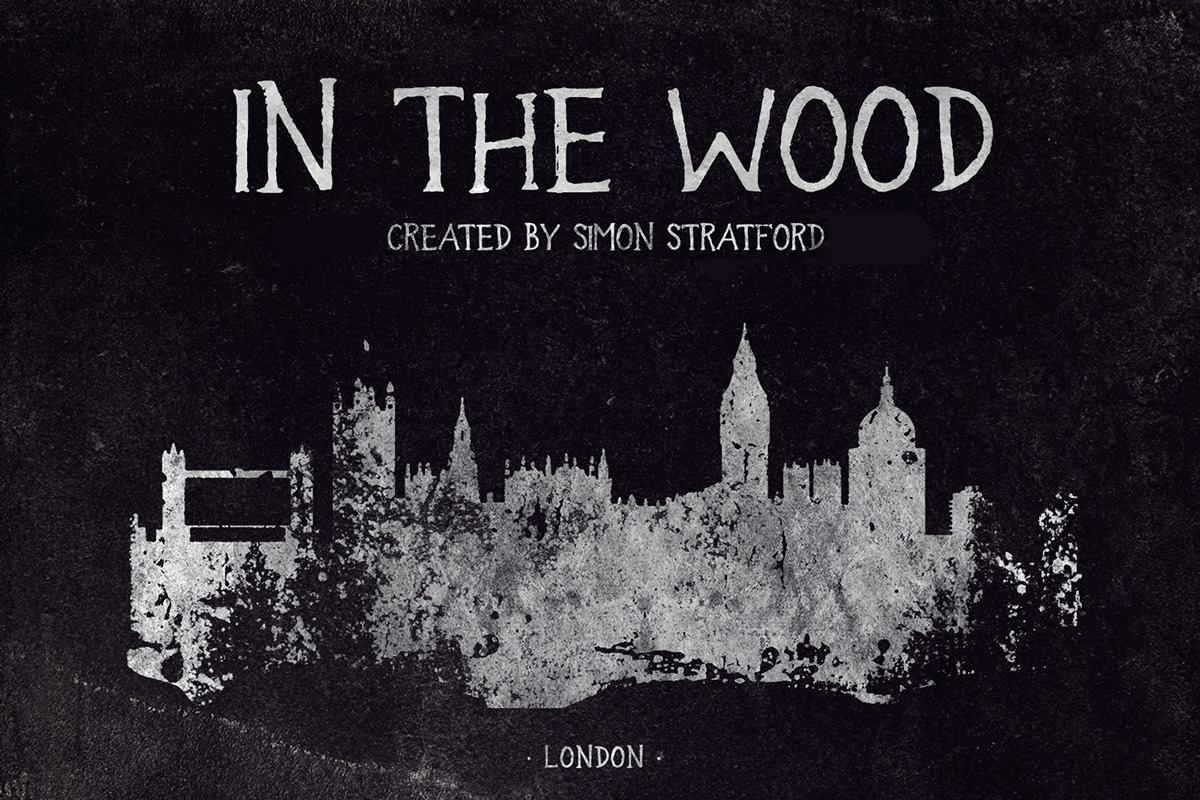
To use this font commercially, you need to purchase it. You can download it free for testing purposes. Display font In the wood font Free Download provides a rustic, handcrafted appearance perfect for nature-themed designs, logos, signage, and packaging. With its distinctive wooden texture, this typeface evokes an organic and authentic feel, making your projects stand out naturally. Ideal for brands seeking to communicate sustainability, craftsmanship, or vintage charm, the unique character set and stylistic details enhance visibility across various media platforms. Download and experiment with Display font In the wood font Free Download to see how it complements your creative vision.